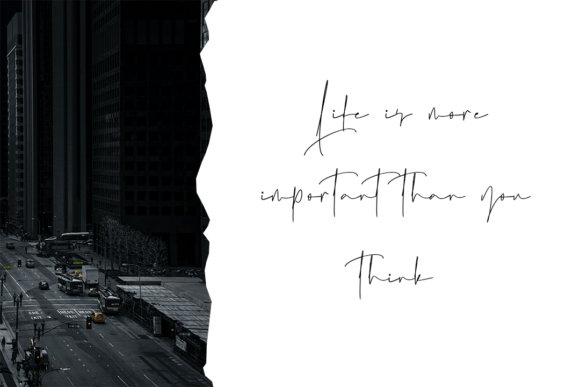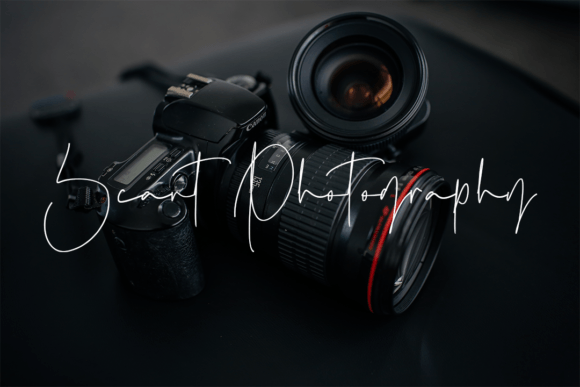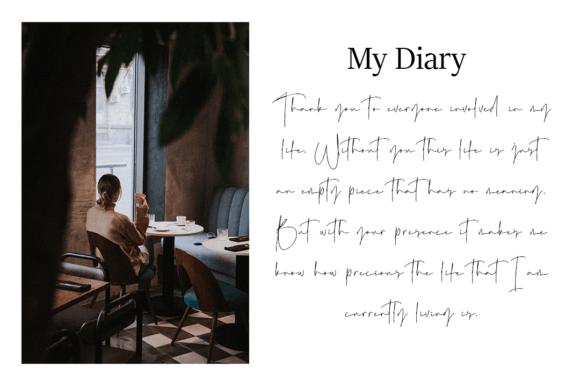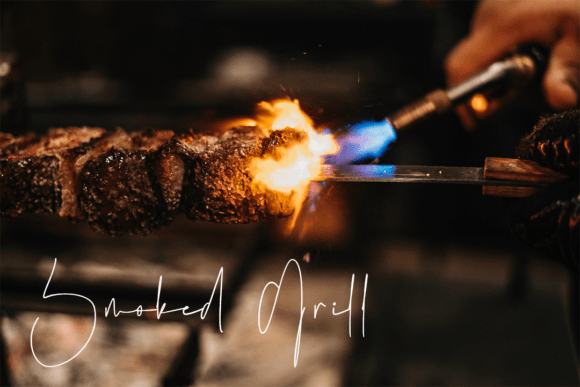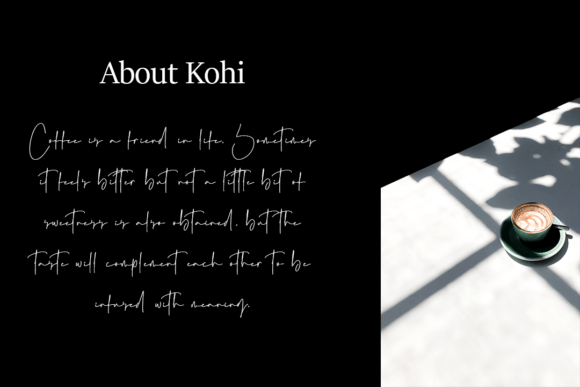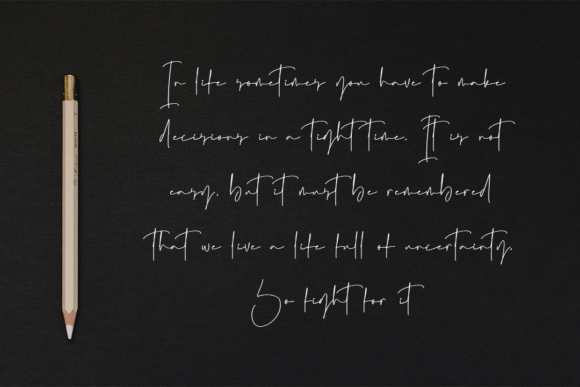
Introduction to Mountain Jack Font
Mountain Jack is a sweet and delicate handwritten font.
Dainty and joyful, this font will be ideal for writing wedding invitations, cards, or any other design that may need a romantic, personalized touch .